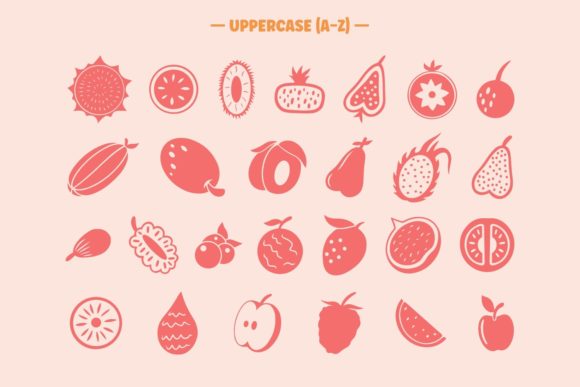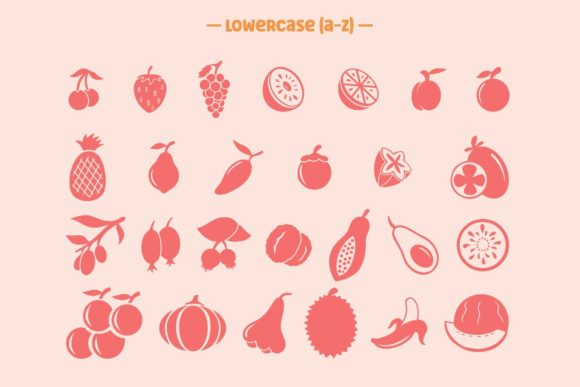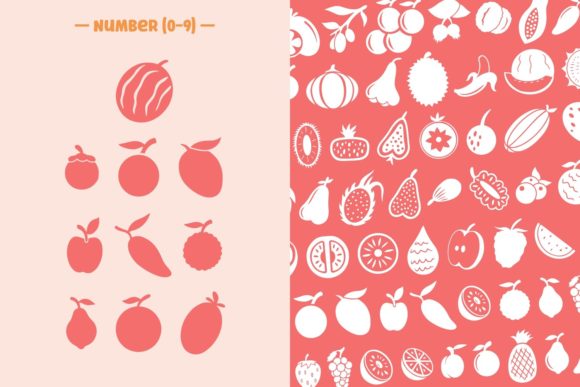
Fruits Dingbats Font
Fruits Dingbats is a delightful and refreshing dingbats font that brings a burst of fruity goodness to your designs. With its wide range of fruit icons, this font allows you to infuse your projects with a vibrant and appetizing aesthetic.
The Fruits Dingbats font is perfect for a variety of applications where you want to add a fresh and lively touch. Whether you’re designing menus, recipe cards, food packaging, or creating digital illustrations, this font provides a diverse selection of fruit icons to enhance your visuals.
With icons representing popular fruits like apples, oranges, strawberries, bananas, and more, the Fruits Dingbats font offers a comprehensive collection that captures the essence of different fruits. Each icon is carefully crafted to showcase the distinctive shapes, colors, and textures of these delicious fruits.
This font is particularly well-suited for projects related to food, nutrition, health, and wellness. If you’re designing a healthy eating guide, a fruit-themed website, or promotional materials for a farmers market, the Fruits Dingbats font can bring a playful and enticing element to your designs.
Beyond food-related projects, the Fruits Dingbats font can also be used creatively in various contexts. It can add a whimsical touch to children’s books, educational materials, or even summer-themed designs. The colorful and juicy fruit icons evoke a sense of joy, abundance, and natural beauty, making them visually appealing to people of all ages.
The versatility of the Fruits Dingbats font allows you to explore different design possibilities. You can use individual fruit icons as decorative elements, create patterns and borders, or even combine multiple icons to form custom illustrations. The possibilities are endless, and your creativity can truly shine with this font.
In summary, the Fruits Dingbats font is a juicy and versatile addition to your font collection. With its wide range of fruit icons, it adds a fresh and lively look to any project. Embrace the vibrant and appetizing aesthetic of this font, and let the fruity icons bring joy and creativity to your designs.